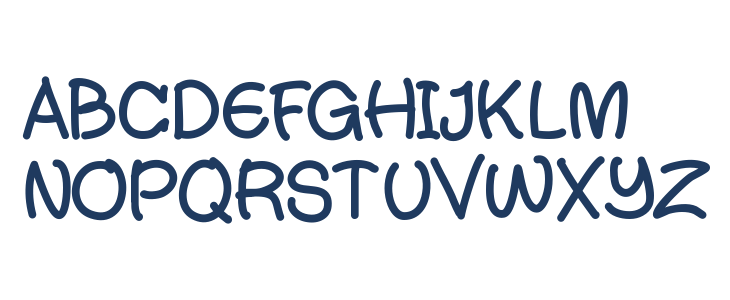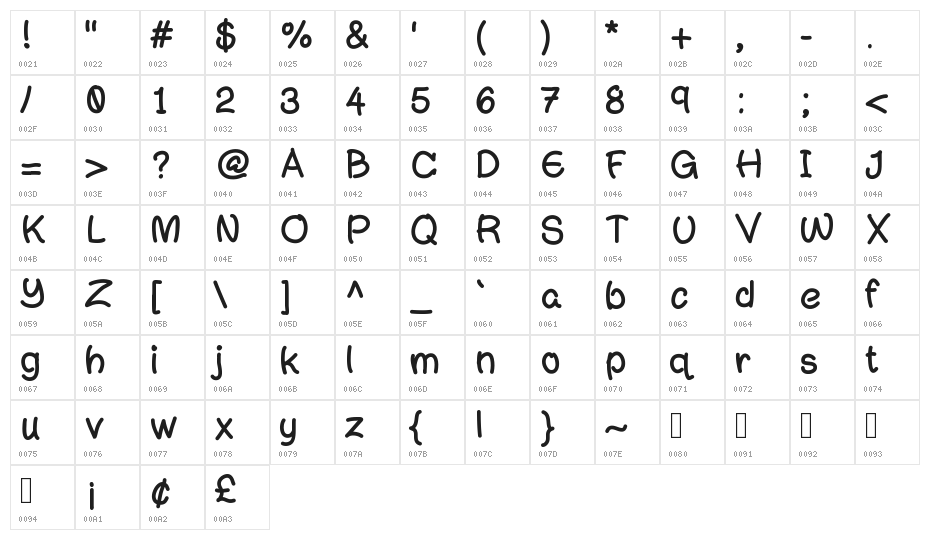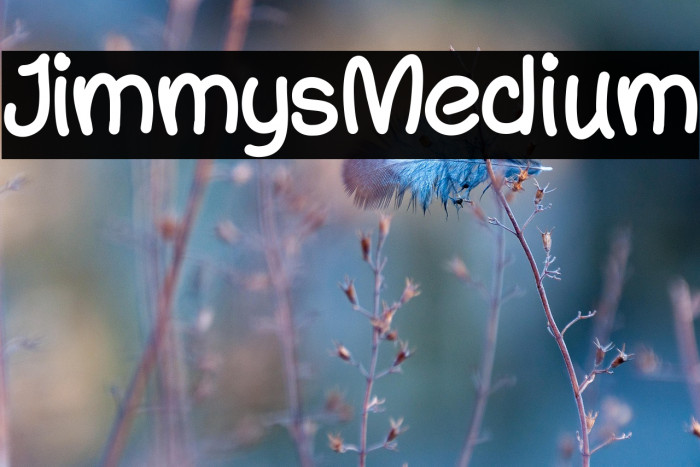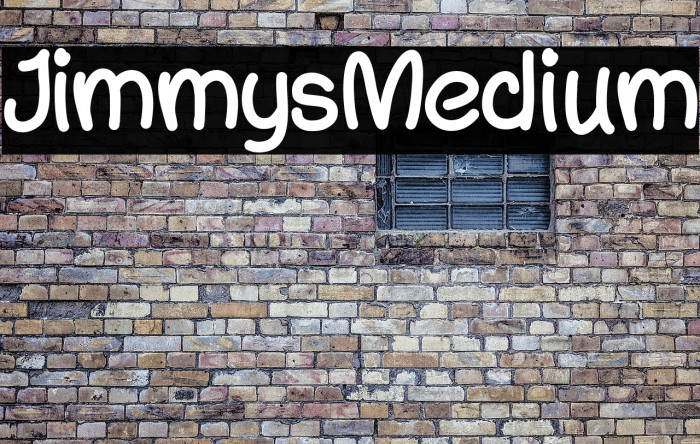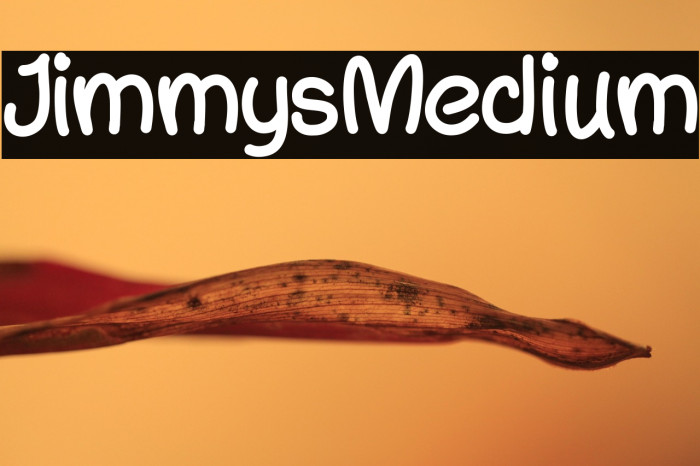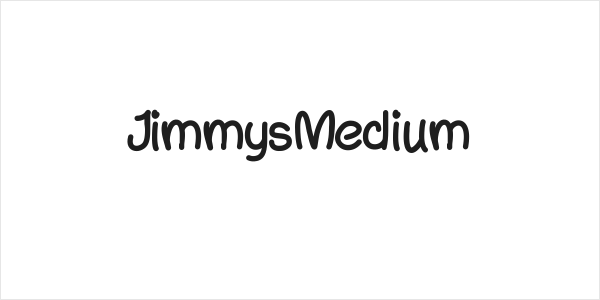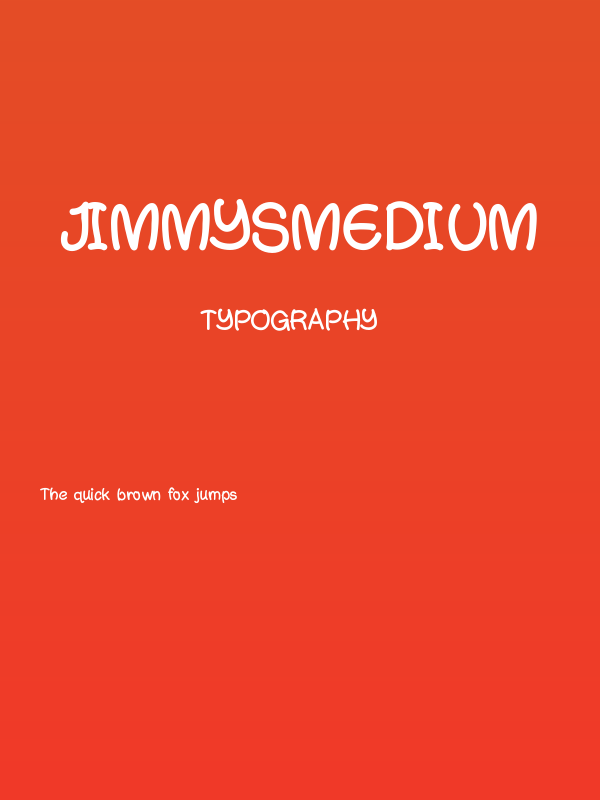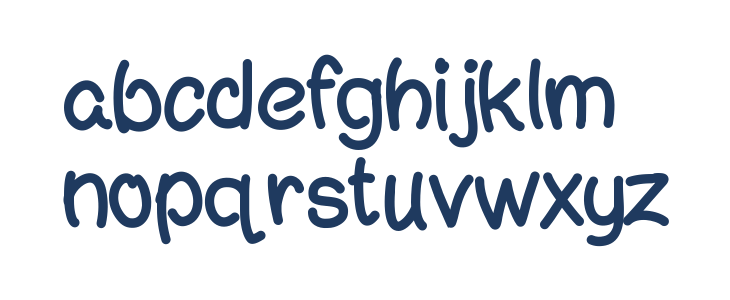
JimmysMedium Font
JimmysMedium Description
A playful, rounded sans-serif font with a handwritten appearance, featuring consistent stroke thickness and open, friendly letterforms. The characters are slightly irregular, giving a casual and approachable feel.
| Overall Style | Playful, Casual, Friendly |
| Use Case | Headlines, Posters, Children's materials, Informal branding |
| Proposed Projects | Children's books, greeting cards, informal branding, posters, educational materials. |